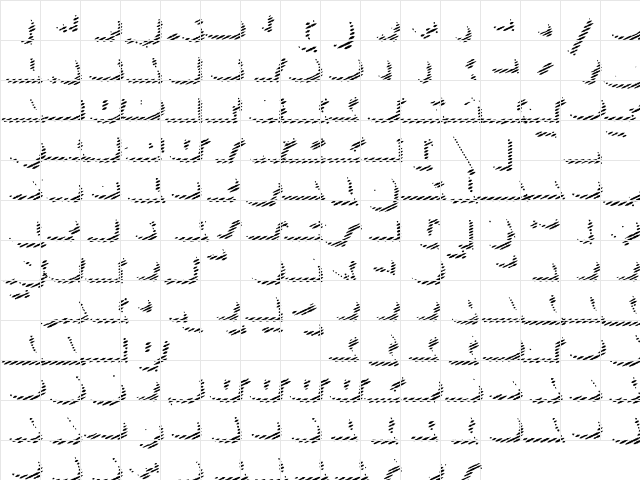
FederalSix DShadow
Design Context for FederalSix Typeface
FederalSix brings ornamental detail and strong personality to headlines and identities, where visual impact matters more than quiet functionality.
Font Pairing: Pair with a clean neutral sans-serif for body copy to let FederalSix's character lead without overwhelming the composition.
Pro Tip: Treat FederalSix as the centrepiece of your typographic hierarchy. One strong heading set in a decorative face can carry an entire layout.